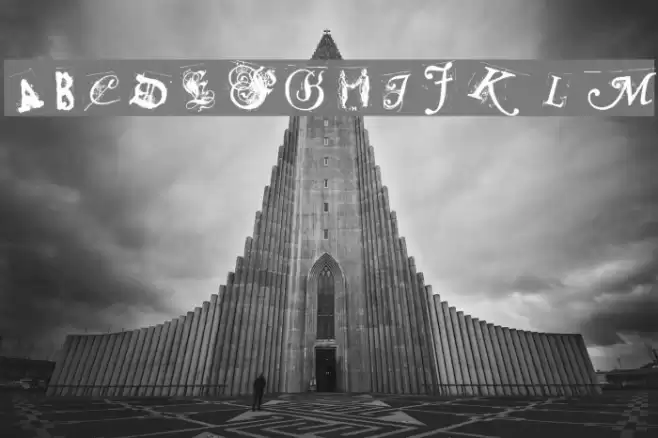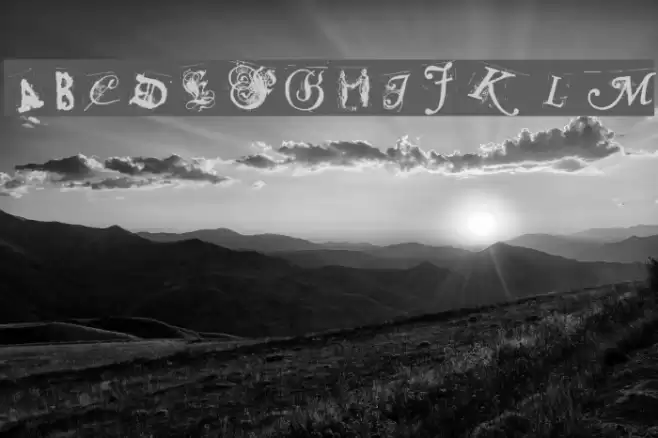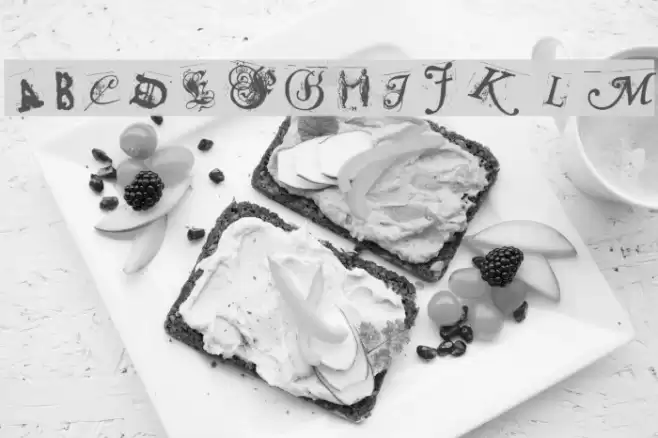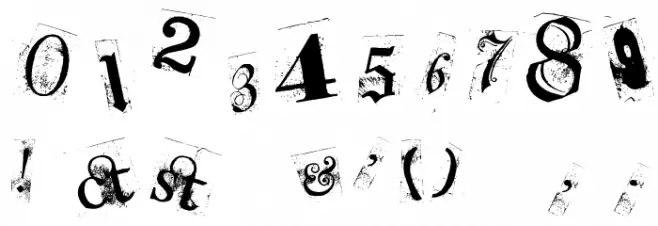
Collage anonymous Font
Collage anonymous Description
This font is a highly decorative and eclectic typeface, featuring a diverse mix of styles and embellishments. Each character appears as if it has been cut from different sources, creating a collage-like effect. The uppercase letters are ornate, with some incorporating flourishes and swirls, while others have a more gothic or vintage appearance. The lowercase letters continue this theme, with varying levels of decoration and complexity. The numbers and special characters are equally varied, with some characters appearing bold and others more delicate. This font is ideal for projects that require a unique and artistic touch, such as posters, album covers, or creative branding.
A decorative and eclectic font with a collage-like mix of styles and embellishments from Uncategorized fonts.
- Proposed Projects: Ideal for artistic projects like posters, album covers, and creative branding.